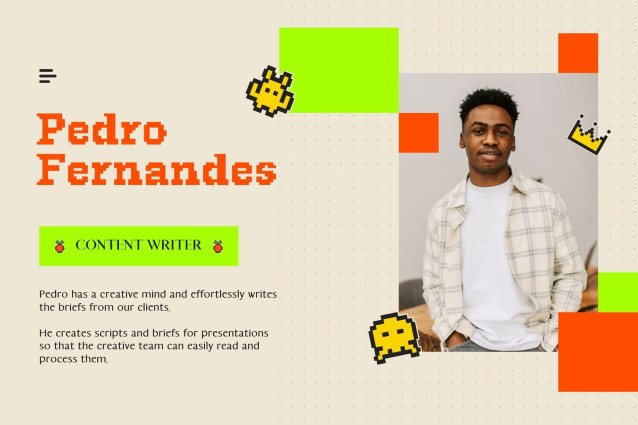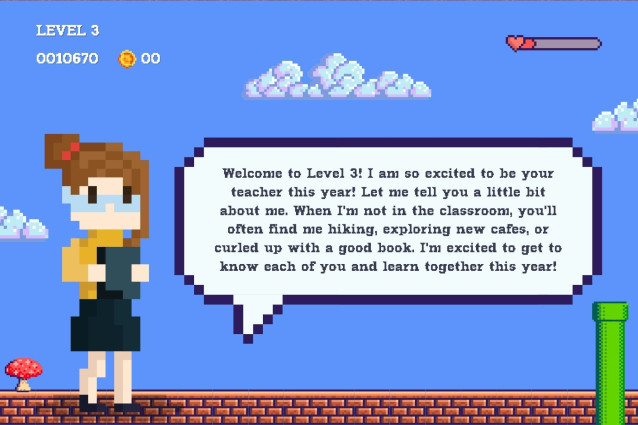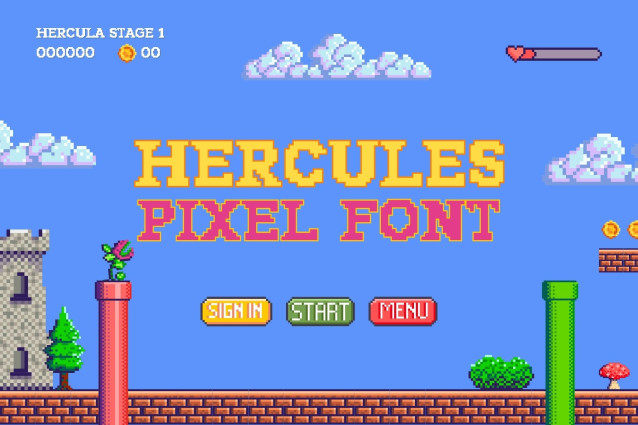
Hercules Pixel Font
Hercules Pixel Font is a powerful pixel typeface built for gaming nostalgia and retro design. Hercules combines classic 8-bit aesthetics with modern versatility, creating a font that’s perfect for game developers, streamers, content creators, and designers looking to add authentic retro charm to their projects.